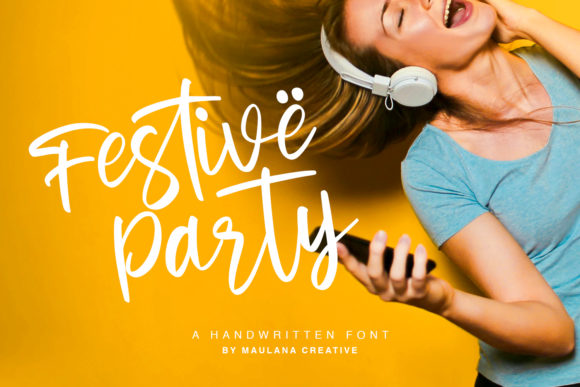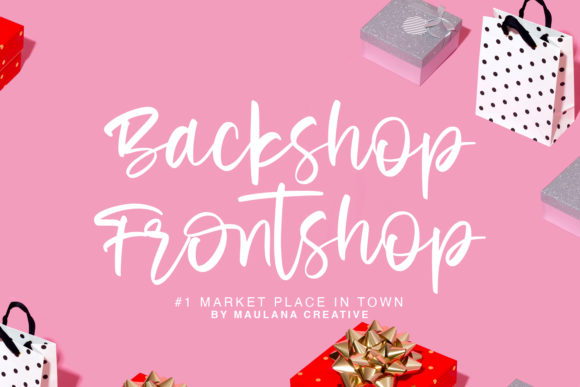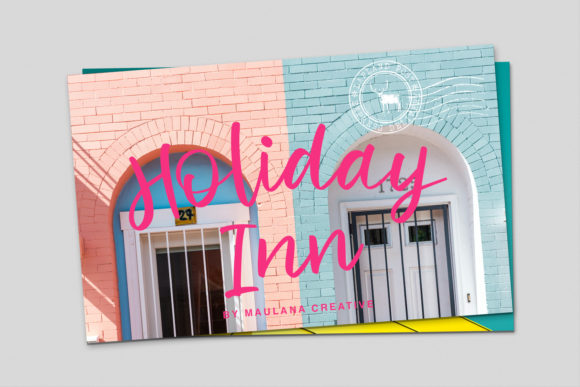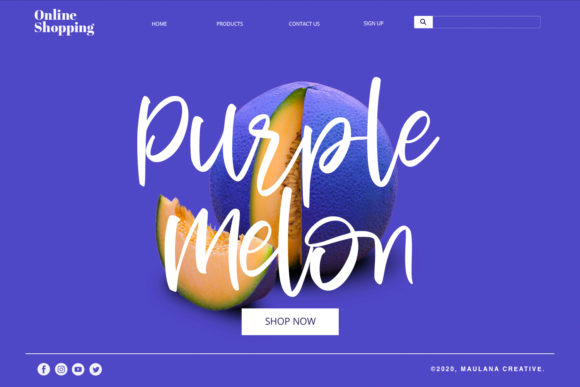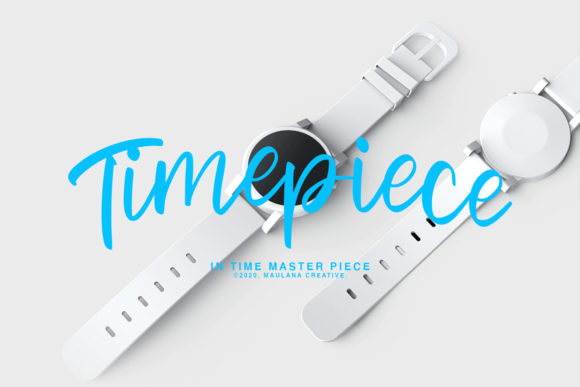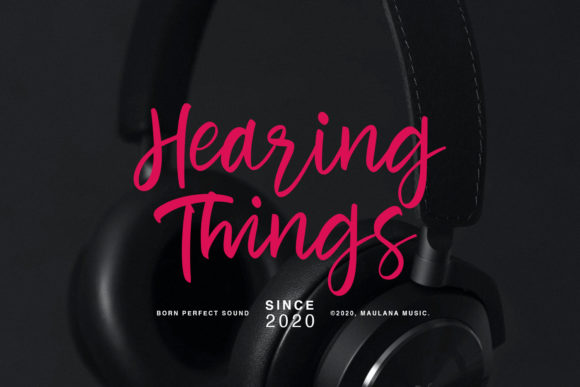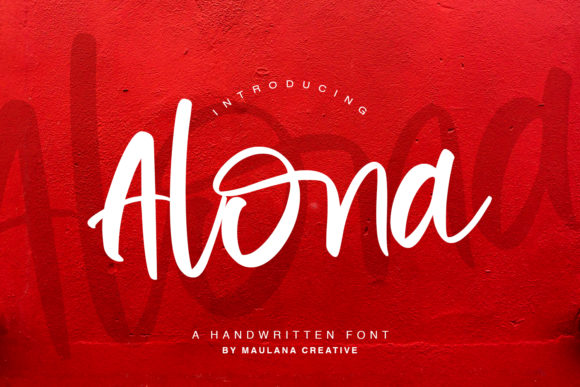
The Quest for the Perfect Font: Discovering Alona
I still remember the design project that led me to Alona Font. I was working on a branding project for a luxury wedding planner, and I needed a font that exuded elegance, sophistication, and a touch of whimsy. I spent hours scouring the internet, trying out font after font, but nothing seemed quite right. That was until I stumbled upon Alona Font. Its charming, handwritten aesthetic immediately caught my eye, and I knew I had found the perfect fit.
A First Impression: What I Love About Alona Font
Alona Font is a true gem, and it’s easy to see why it’s become a favorite among designers and crafters alike. Here are just a few things that I love about this stunning font:
- ✨ Elegant, handwritten aesthetic: Alona Font has a beautiful, flowing quality that makes it perfect for projects that require a touch of sophistication.
- ✅ Varying baseline: The font’s varying baseline adds a level of visual interest and depth, making it perfect for headlines, titles, and other display text.
- ✅ Smooth lines and gorgeous glyphs: Alona Font features smooth, flowing lines and a range of gorgeous glyphs, including stunning alternates.
While Alona Font is an amazing choice for many projects, there are a few quirks to consider:
- ⚠️ Legibility at small sizes: Like many handwritten fonts, Alona can be a bit tricky to read at small sizes. Be sure to test it out at different sizes to ensure it’s legible for your project.
- 🤔 Limitations with certain software: Some older software or platforms may not support the full range of OpenType features and glyphs that Alona Font has to offer.
The Story Behind Alona Font
While the true story behind Alona Font may be unknown, it’s easy to imagine that it was created by a designer who loves classic calligraphy and wants to bring a touch of elegance to modern design. With its beautiful, flowing lines and gorgeous glyphs, it’s clear that Alona Font was designed to make a statement.
| What is Alona Font best used for? | Alona Font is perfect for projects that require a touch of elegance and sophistication, such as wedding invitations, luxury branding, and high-end advertising. |
| Is Alona Font easy to read? | Alona Font is generally easy to read, but like many handwritten fonts, it can be a bit tricky at small sizes. |
| Does Alona Font come with any special features? | Yes, Alona Font comes with a range of special features, including OpenType features, glyphs, and stylistic alternates. |